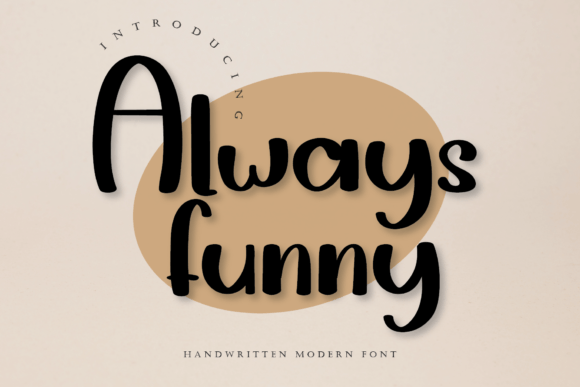
The Ultimate Guide to Always Funny Font: Elevate Your Designs with Elegance
I’ll never forget the time I was working on a wedding invitation project, and my client asked for a font that was both elegant and modern. I scoured the internet, trying out font after font, but nothing seemed quite right. That was until I stumbled upon Always Funny Font. ✨ This beautiful, handwritten font has been a game-changer for my designs, and I’m excited to share its magic with you.
An Honest Review of Always Funny Font
So, what makes Always Funny Font so special? Let’s dive into the good stuff and a few quirks I’ve discovered.
- ✨ Elegant and modern aesthetic that’s perfect for a variety of design projects
- 💫 Beautifully crafted with attention to detail, making it perfect for high-end designs
- 🎨 Versatile and can be used for a range of projects, from wedding invitations to business cards and more
- 🤔 Limited availability of stylistic alternates, which may limit its use in certain design contexts
- ⚠️ Not ideal for body text, as it’s best suited for headlines and titles
A Practical Guide to Using Always Funny Font
The Story Behind Always Funny Font
Always Funny Font was designed with the goal of creating a beautiful, elegant font that would leave a lasting impression. The designer, inspired by the beauty of handwritten script, set out to craft a font that would be both modern and timeless. With its elegant lines and flowing curves, Always Funny Font is the perfect choice for designers looking to add a touch of sophistication to their work.
| Font Name | Always Funny Font |
| Author | hl_studio |
| What type of designs is Always Funny Font best suited for? | Always Funny Font is perfect for designs that require an elegant and modern touch, such as wedding invitations, business cards, logos, and more. |